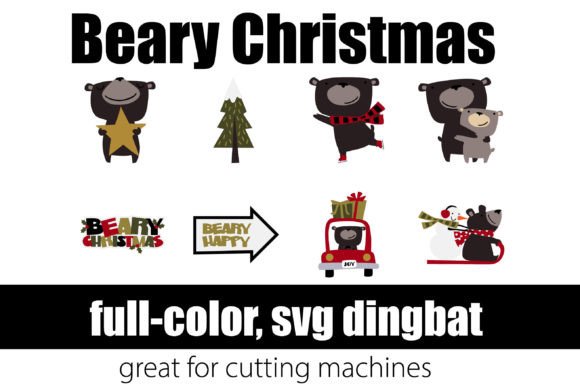
Enter the joyous realm of Christmas cheer with our exclusive Beary Christmas Font – a delightful dingbat font brimming with festive charm and playful spirit! Let your imagination dance with our whimsical Christmas bears and an array of enchanting holiday elements, transforming your creative projects into a magical winter wonderland.
Immerse yourself in the boundless possibilities offered by this extraordinary font. Crafted with meticulous attention to detail, Beary Christmas Font promises to elevate your designs with its captivating characters and vibrant colors. Unleash your creativity and embark on a journey of artistic exploration, knowing that this font will be your steadfast companion every step of the way.
Picture this: Your Christmas cards adorned with adorable bears frolicking amidst snowflakes, your social media posts sparkling with festive greetings, and your handmade gifts adorned with intricate Christmas motifs – all brought to life with the magic of Beary Christmas Font. Prepare to be mesmerized as this font weaves its enchanting spell, transforming the ordinary into the extraordinary.
With Beary Christmas Font, you hold the key to unlocking a world of creative wonders. Its versatility knows no bounds, extending from heartwarming holiday cards to eye-catching social media posts, from personalized gift tags to stunning home décor. Let your imagination soar as you discover endless applications for this whimsical font, spreading joy and merriments wherever it goes.
Step into the enchanted realm of Beary Christmas Font today, and experience the transformative power of creativity. Let this font be your guide as you embark on a festive adventure, leaving a trail of smiles and cheer in your wake. Embrace the magic of Christmas and watch as your designs come alive with the playful spirit of the season.